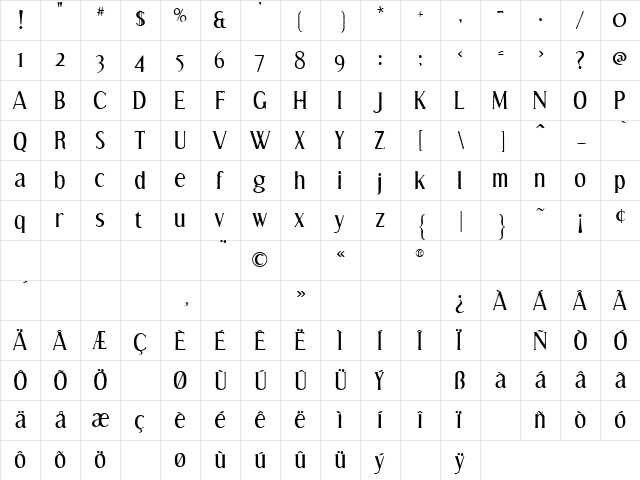
Effloresce Antique Regular
Design Context for Effloresce Antique Typeface
Effloresce Antique has the warm character of retro typography — evoking diners, record sleeves, and the golden age of print advertising.
Ideal for diner signage, record shop branding, 70s/80s-themed projects, and heritage product labels.
Font Pairing: Combine Effloresce Antique with a simple slab or neutral sans — period-accurate companions reinforce the vintage feel without competing for attention.
Pro Tip: Lean into Effloresce Antique's period character by pairing it with aged paper textures, muted colour palettes, and vintage illustration styles.